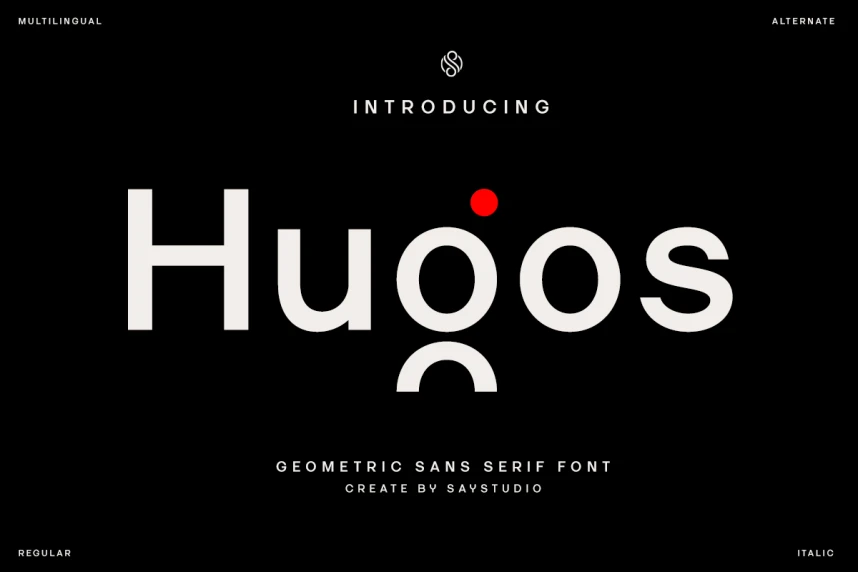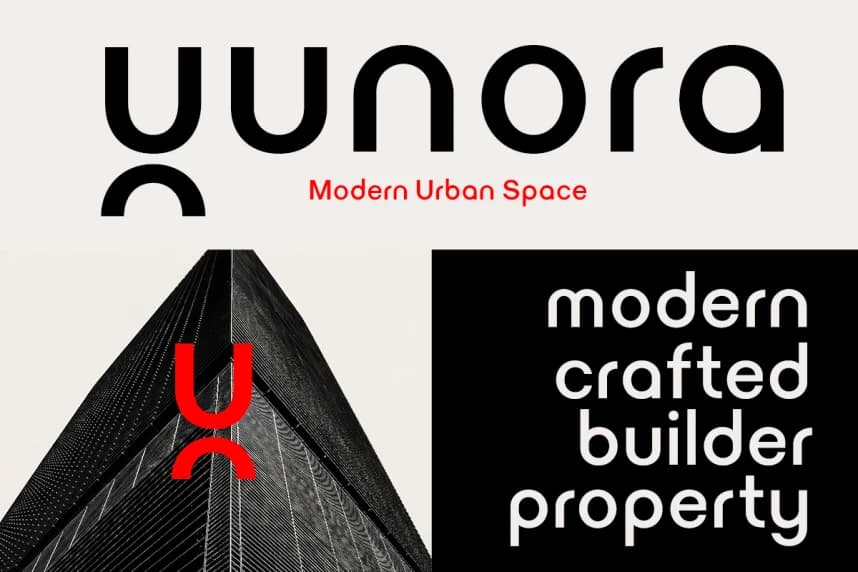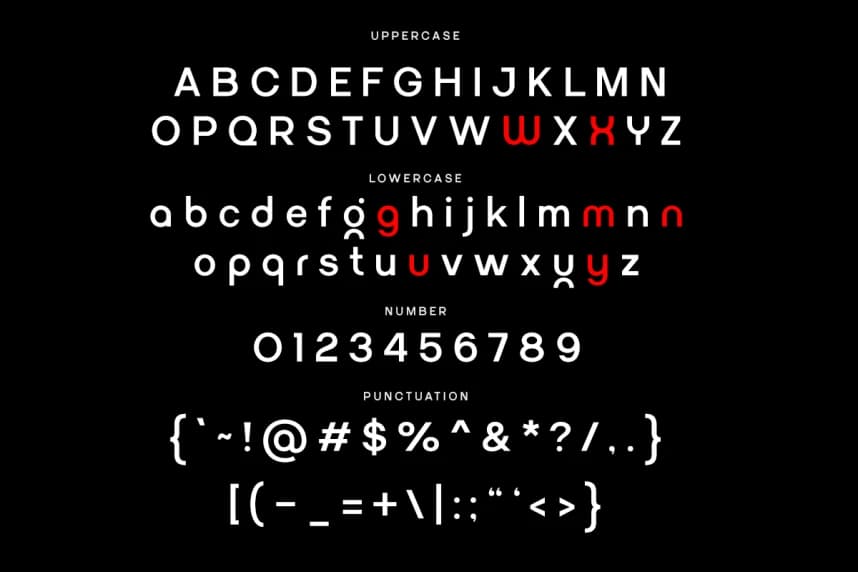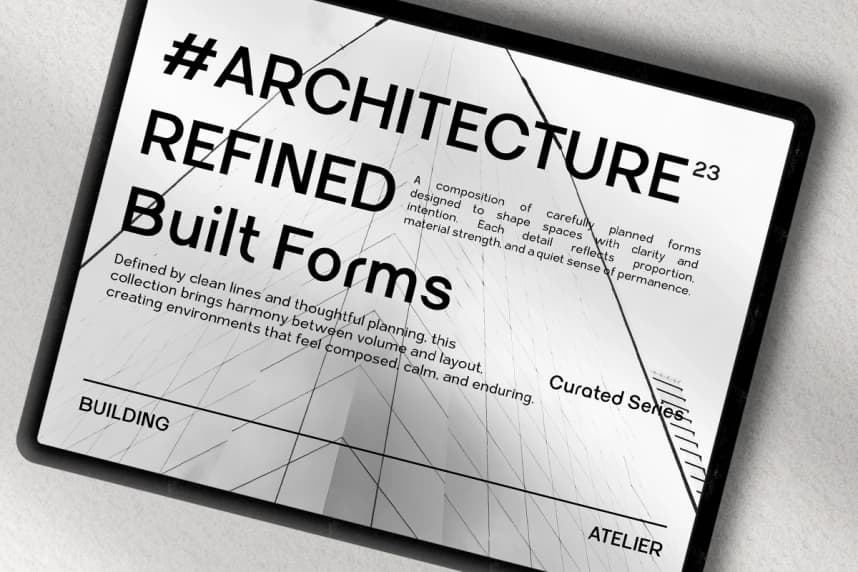
Hugos Font
Hugos Font is a geometric sans serif font that combines modern simplicity with distinctive visual character. Built with clean shapes and balanced proportions, it delivers a minimalist yet bold appearance that feels fresh and contemporary.